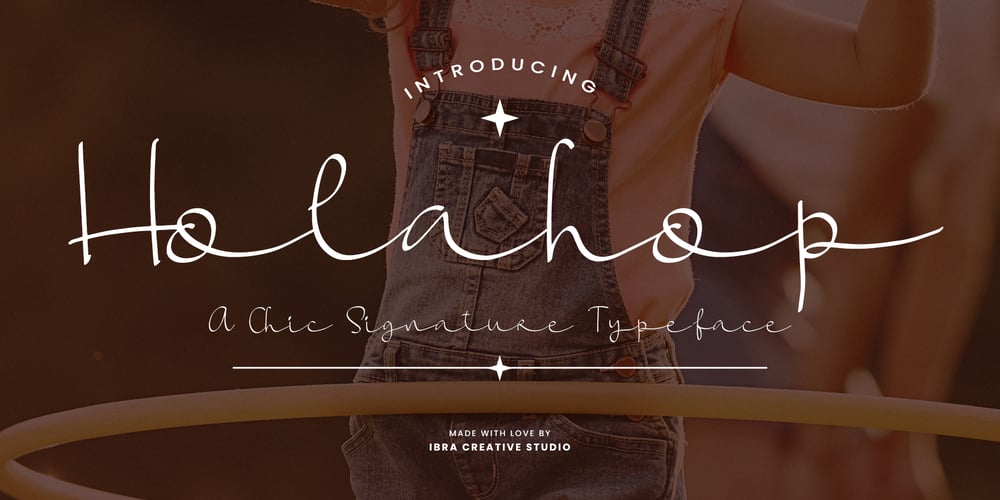
Holahop
Holahop font
Holahop Font Family was designed by Roisatul Azizah and published by IbraCreative. Holahop contains 1 styles and family package options. Holahop – A Chic Signature TypefaceHolahop, a chic signature typeface, epitomizes elegance and sophistication with its gracefully flowing lines and distinctive design. This font effortlessly captures the essence of a stylish, handwritten signature, adding a touch of glamour to any project. Holahop’s cursive strokes and carefully crafted letterforms exude a sense of refined simplicity, making it a versatile choice for branding, invitations, and upscale designs. Whether used for personal or professional purposes, Holahop elevates the aesthetic, creating a signature style that resonates with modern charm and timeless grace. This typeface is a seamless blend of chic aesthetics and individuality, offering a distinctive visual identity to any creative endeavor.Holahop is perfect for branding projects, logo, wedding designs, social media posts, advertisements, product packaging, product designs, label, photography, watermark, invitation, stationery, game, fashion and any projects.Fonts include multilingual support for; Afrikaans, Albanian, Czech, Danish, Dutch, English, Estonian, Finnish, French, German, Hungarian, Italian, Latvian, Lithuanian, Norwegian, Polish, Portuguese, Slovak, Slovenian, Spanish, Swedish.